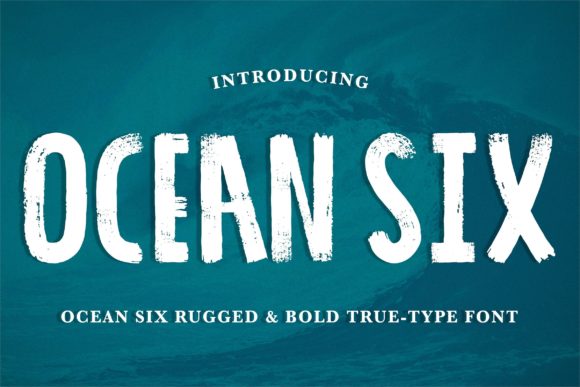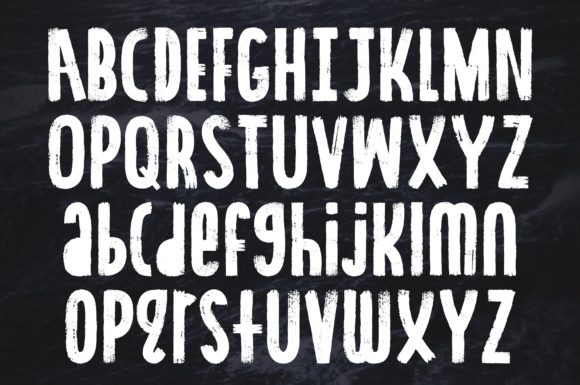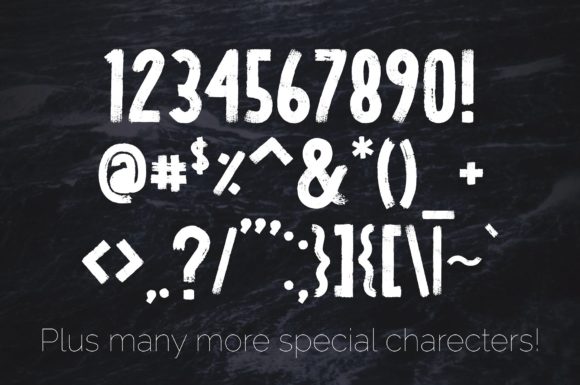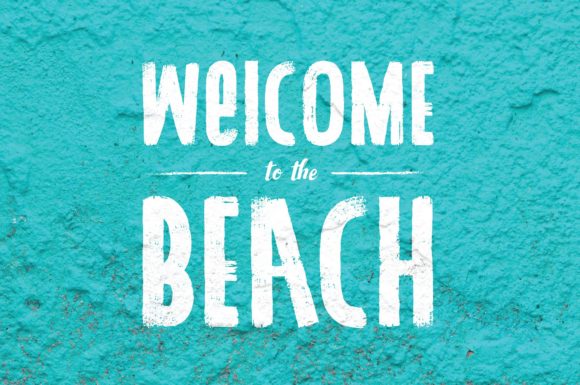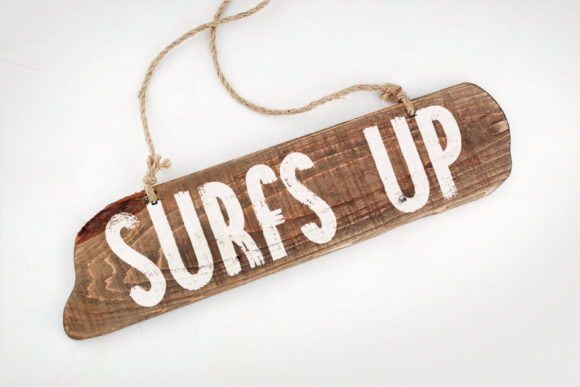
Ocean Six Font
About Ocean Six Font
The Ocean Six is a bold display typeface with an unique, detailed, and handmade look. It was made with scanned/vectorized acrylic brush strokes and inspired from a vintage catalog.